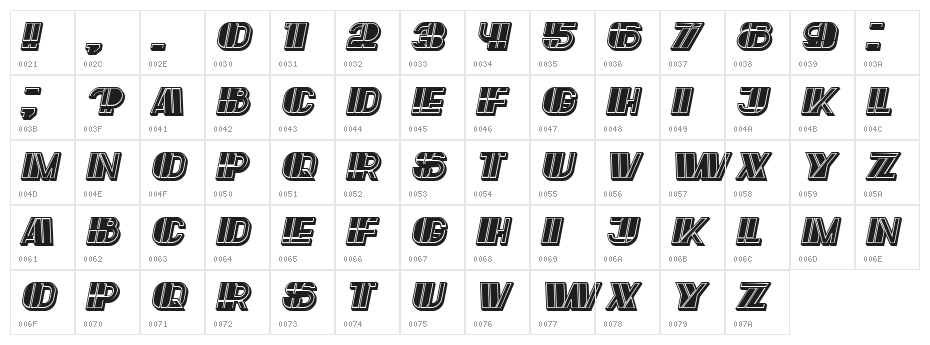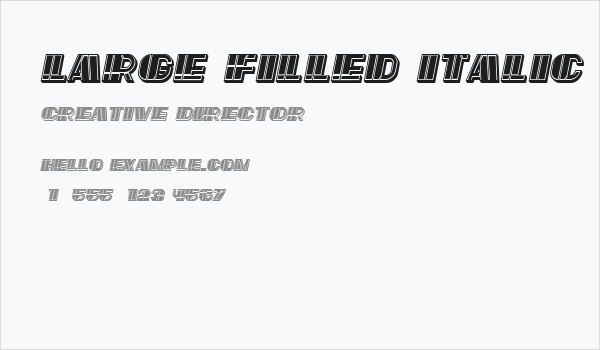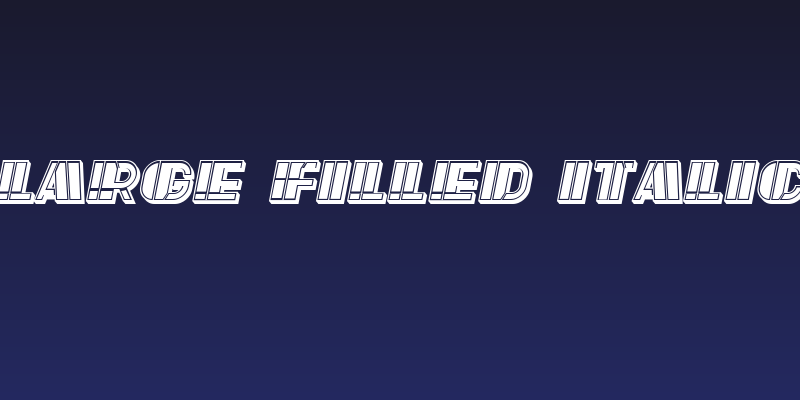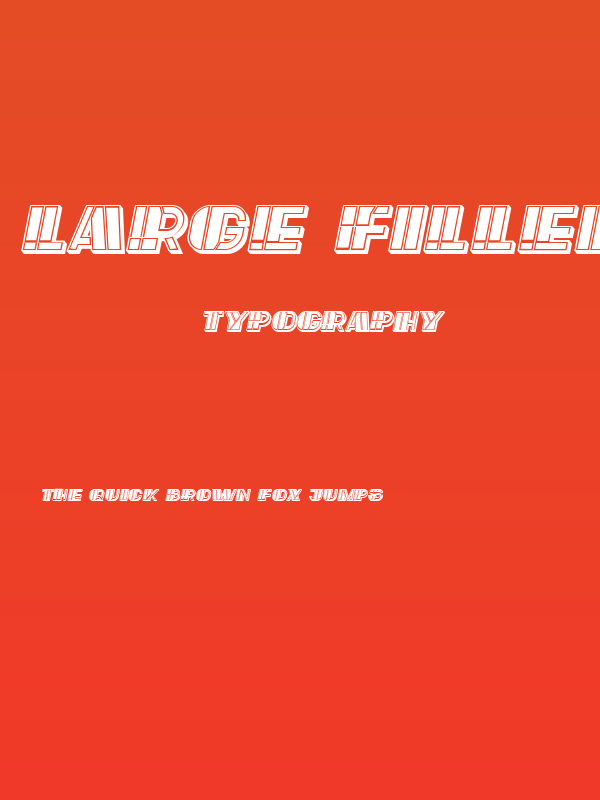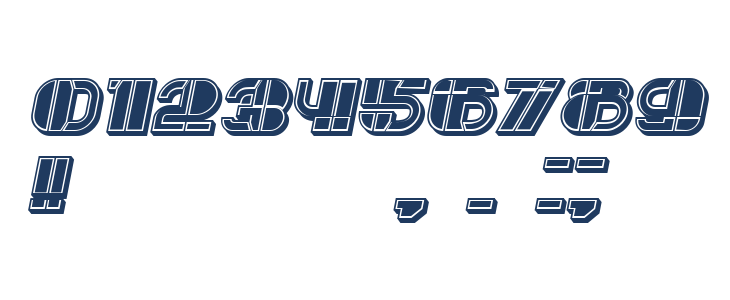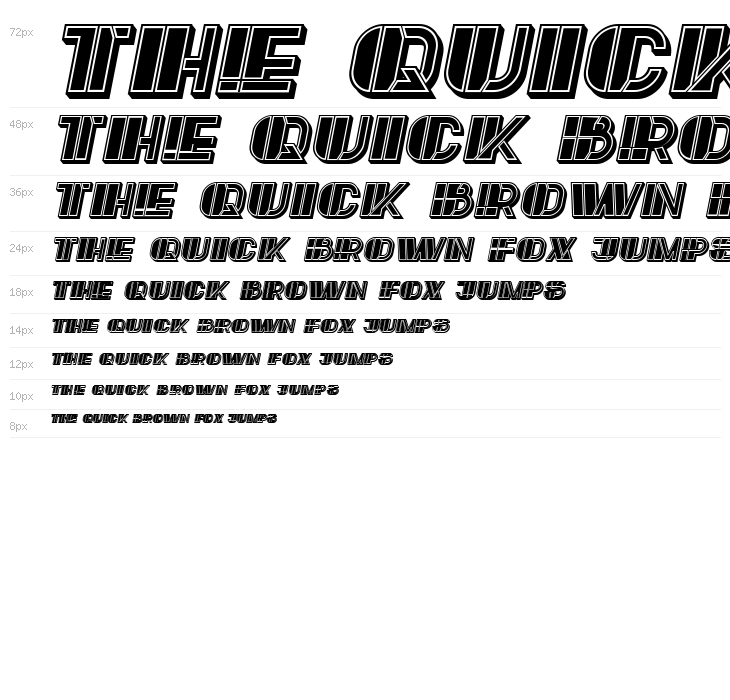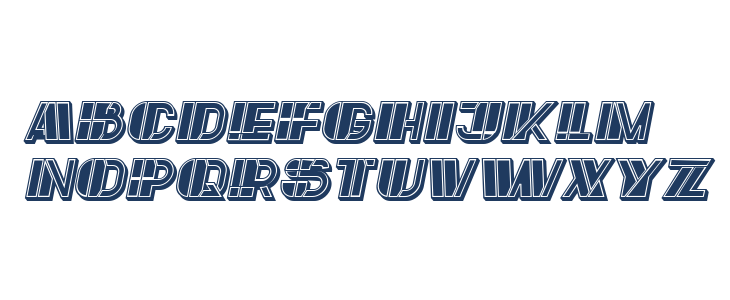
Large Filled Italic Font
Large Filled Italic Description
This font features a bold and dynamic design with a filled, italicized style. The characters are outlined with a thick black border, creating a striking contrast that enhances readability. The letters are wide and have a geometric, almost futuristic appearance, with sharp angles and clean lines. The numbers and special characters maintain the same bold and filled aesthetic, ensuring consistency across all characters. This font's unique style makes it stand out, making it suitable for eye-catching designs.
| Proposed Projects | Ideal for posters, headlines, logos, and any design requiring a bold statement. |